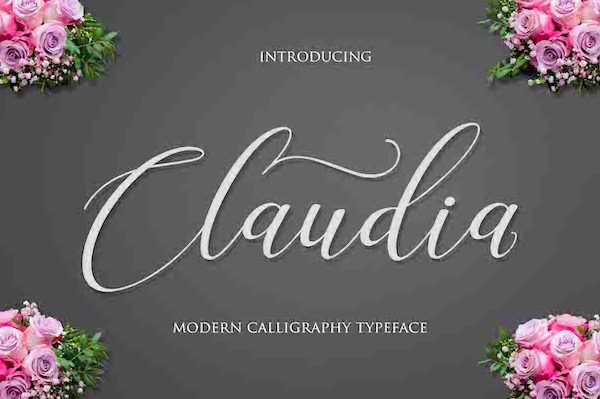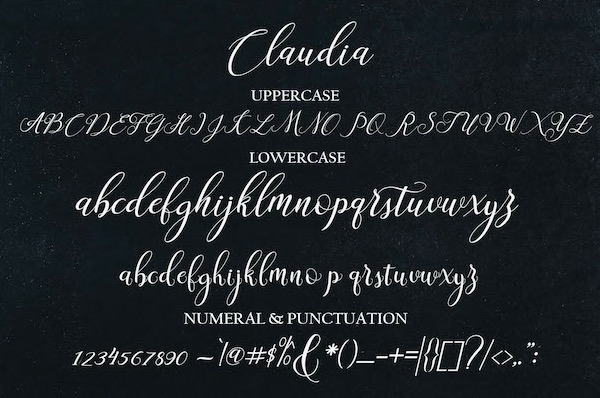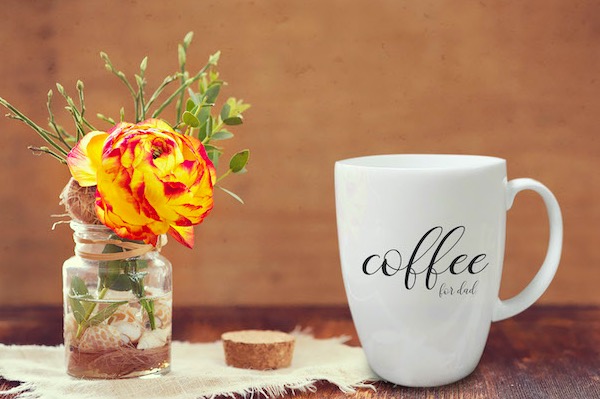
Claudia Font
Claudia is a classy and lovely calligraphy script font that was created and released by Mrletters along with a fresh, modern handmade calligraphy style.
It features stunning decorative characters with thin, elegant swashes. It works great on wedding invites, cards, branding materials and much more.
The Claudia Script comes loaded up with over 650 unique glyphs, leaving you with lot’s of options.